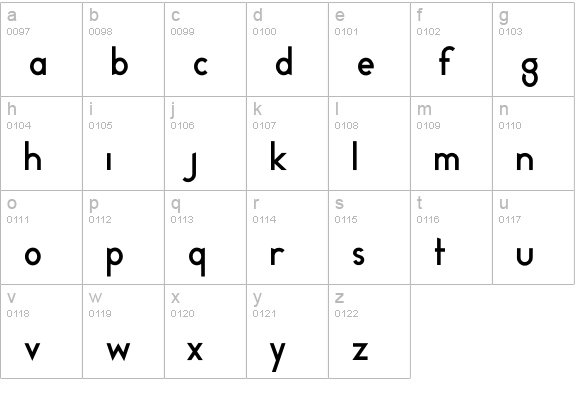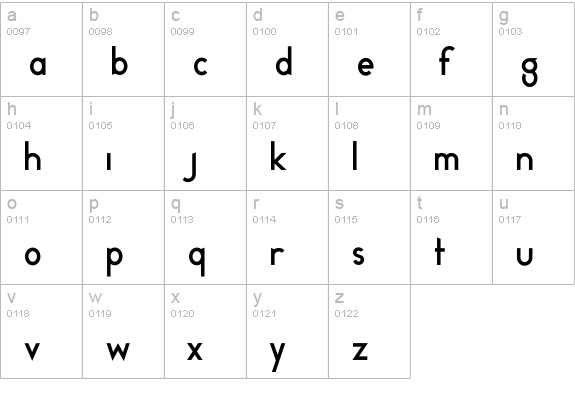
Melvinsans-Regular is the standard, neutral variant in the Melvinsans typeface family \xE2\x80\x94 well suited to general body text, paragraphs, and standard typographic work.
Melvinsans-Regular is a versatile and clean sans-serif font that is perfect for a wide range of design projects. Its modern yet timeless appearance makes it suitable for both digital and print applications, including websites, posters, logos, and more. With its balanced proportions and subtle details, Melvinsans-Regular exudes professionalism and sophistication. What makes this font even more appealing is that it is available for free download at FontsMarket.com. This means you can easily access and use Melvinsans-Regular in your projects without any cost. Whether you are a designer looking to add a new font to your collection or a business owner in need of a fresh typography choice, Melvinsans-Regular is a fantastic option that won't break the bank. Download it today and elevate your designs with this elegant and stylish typeface.